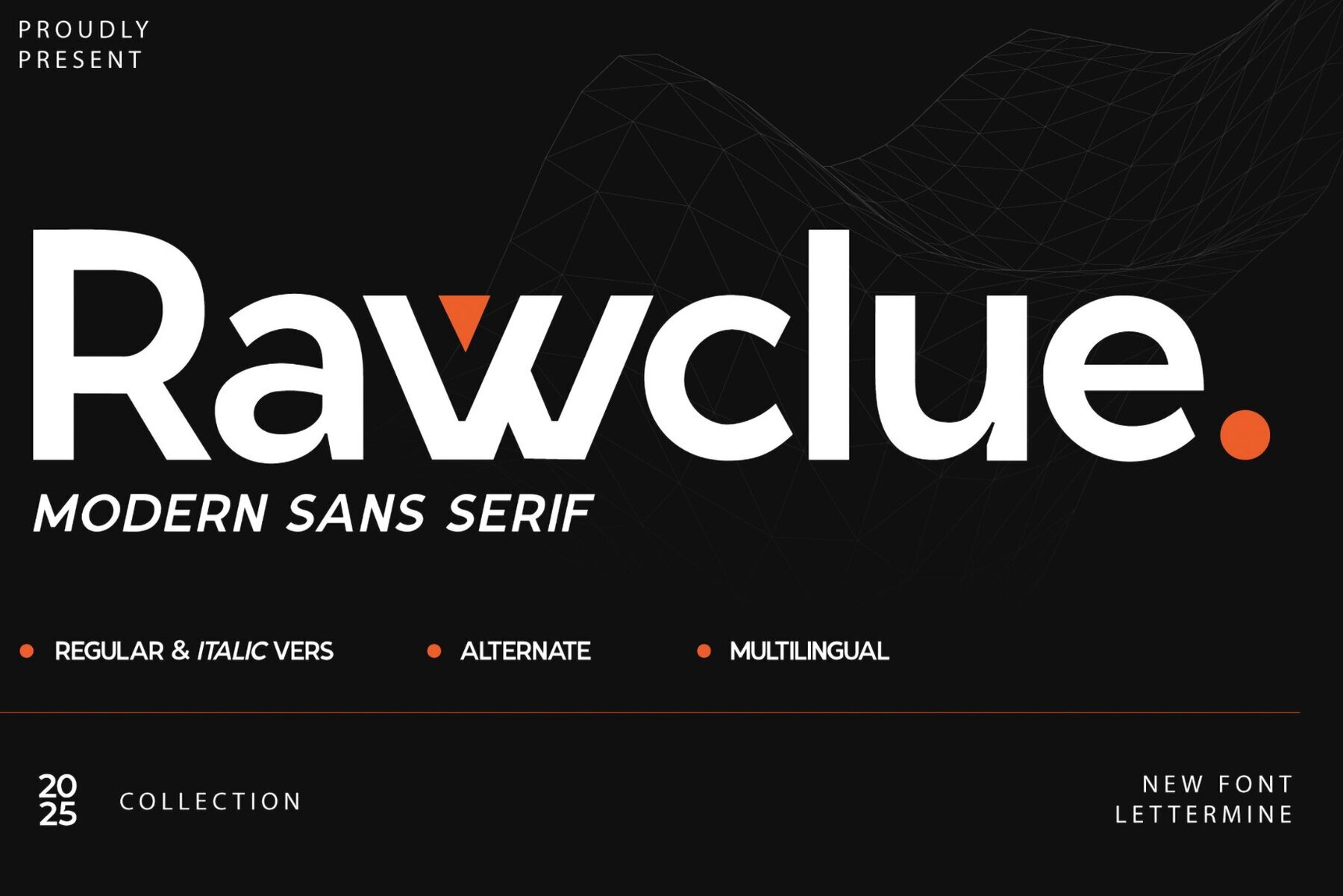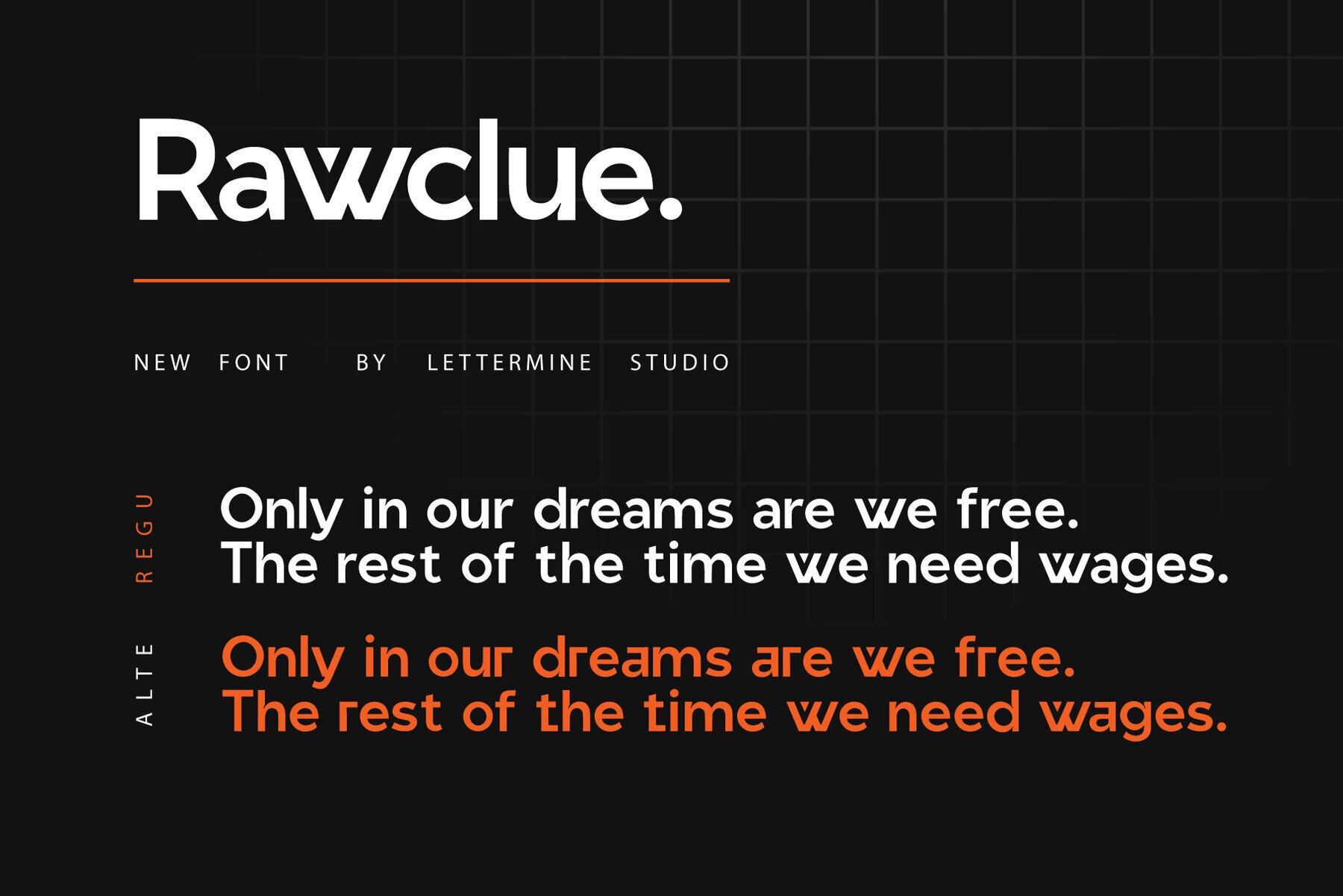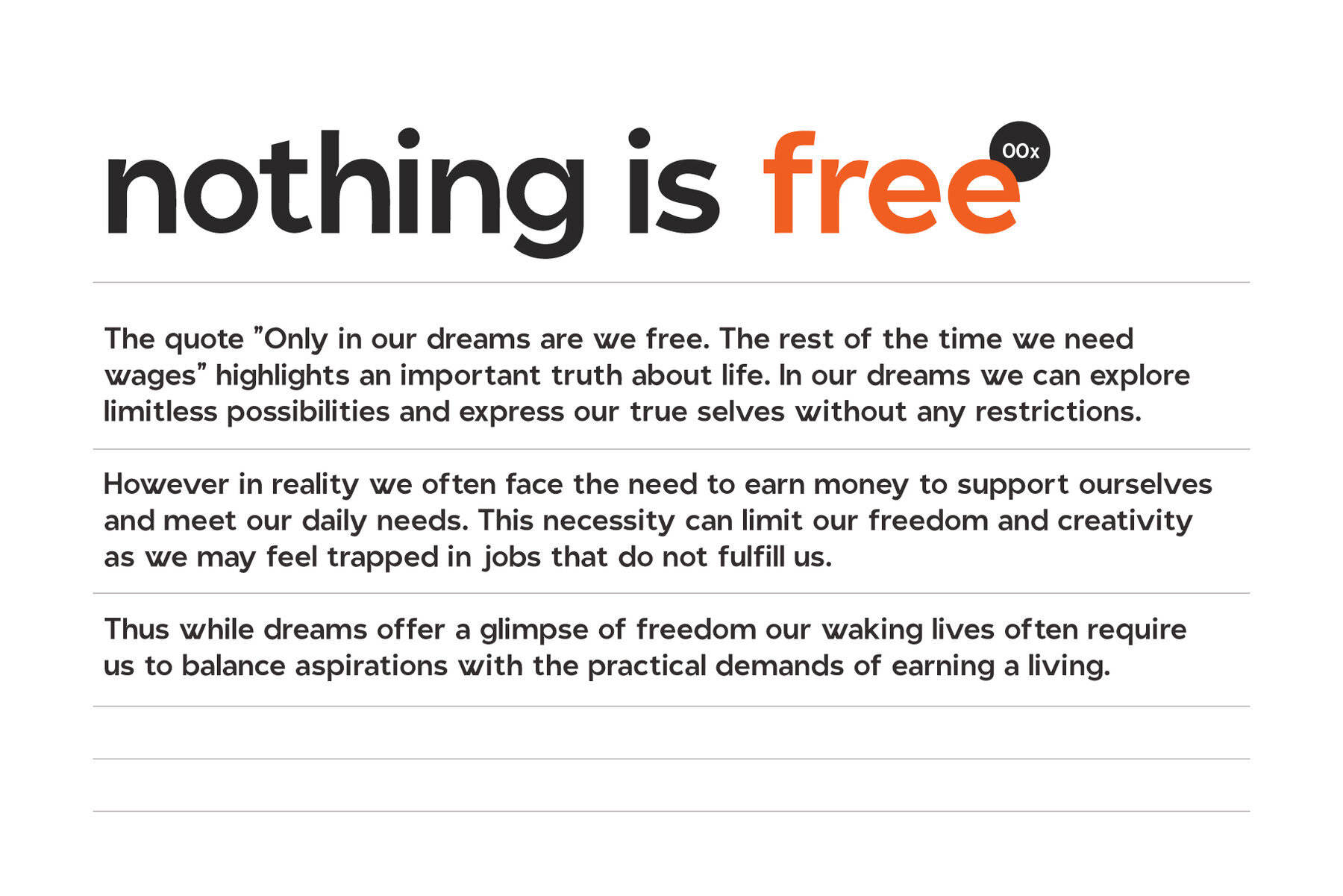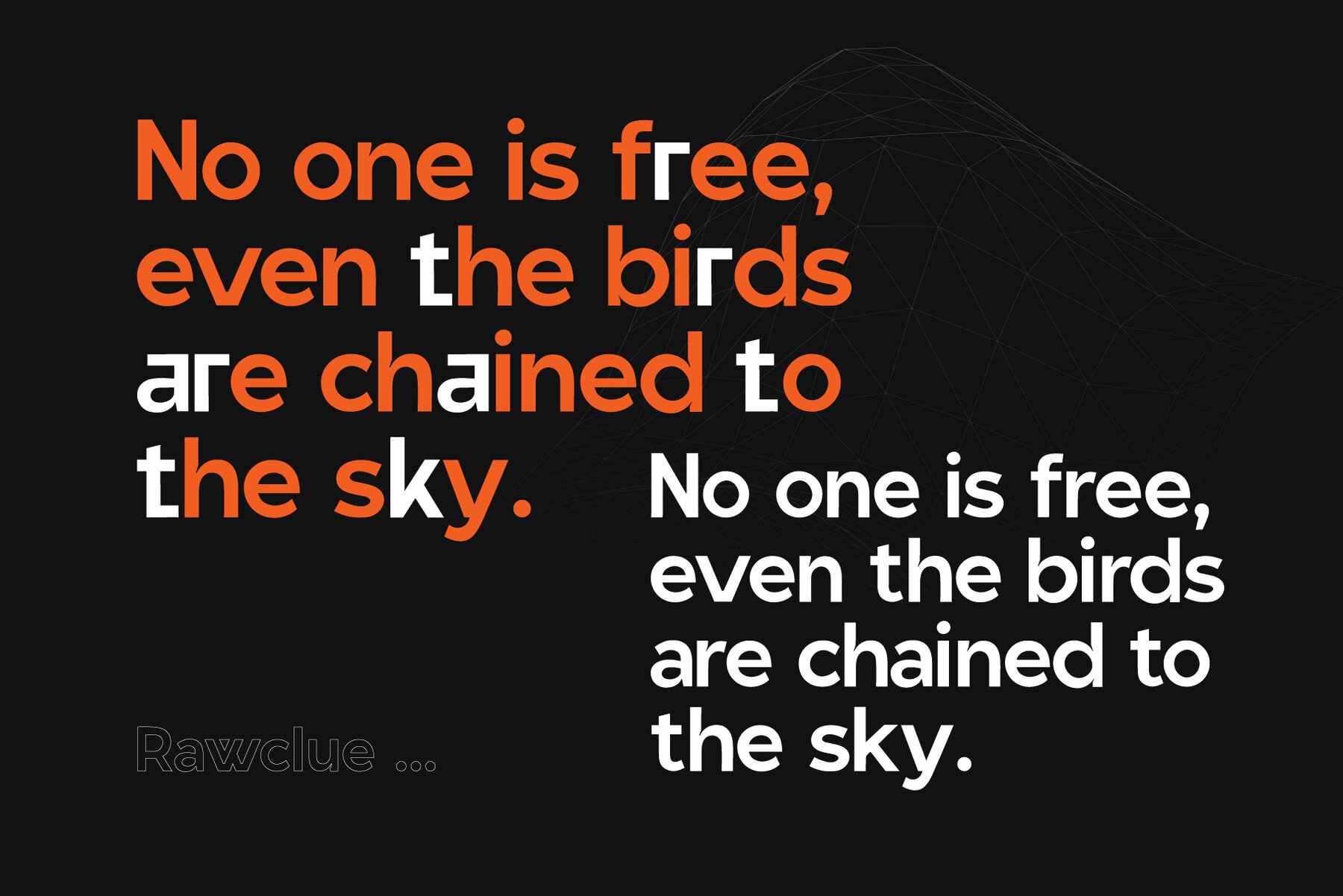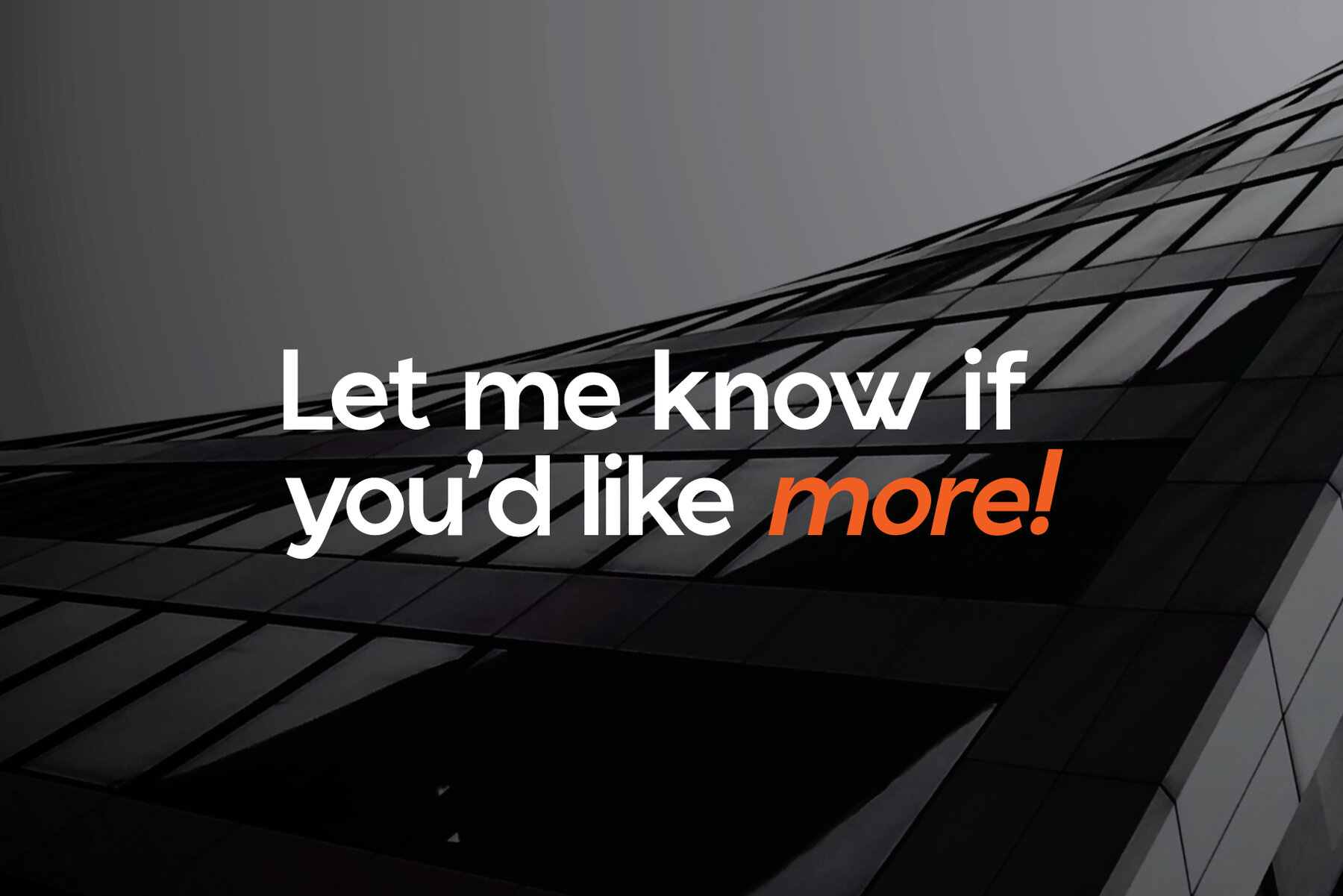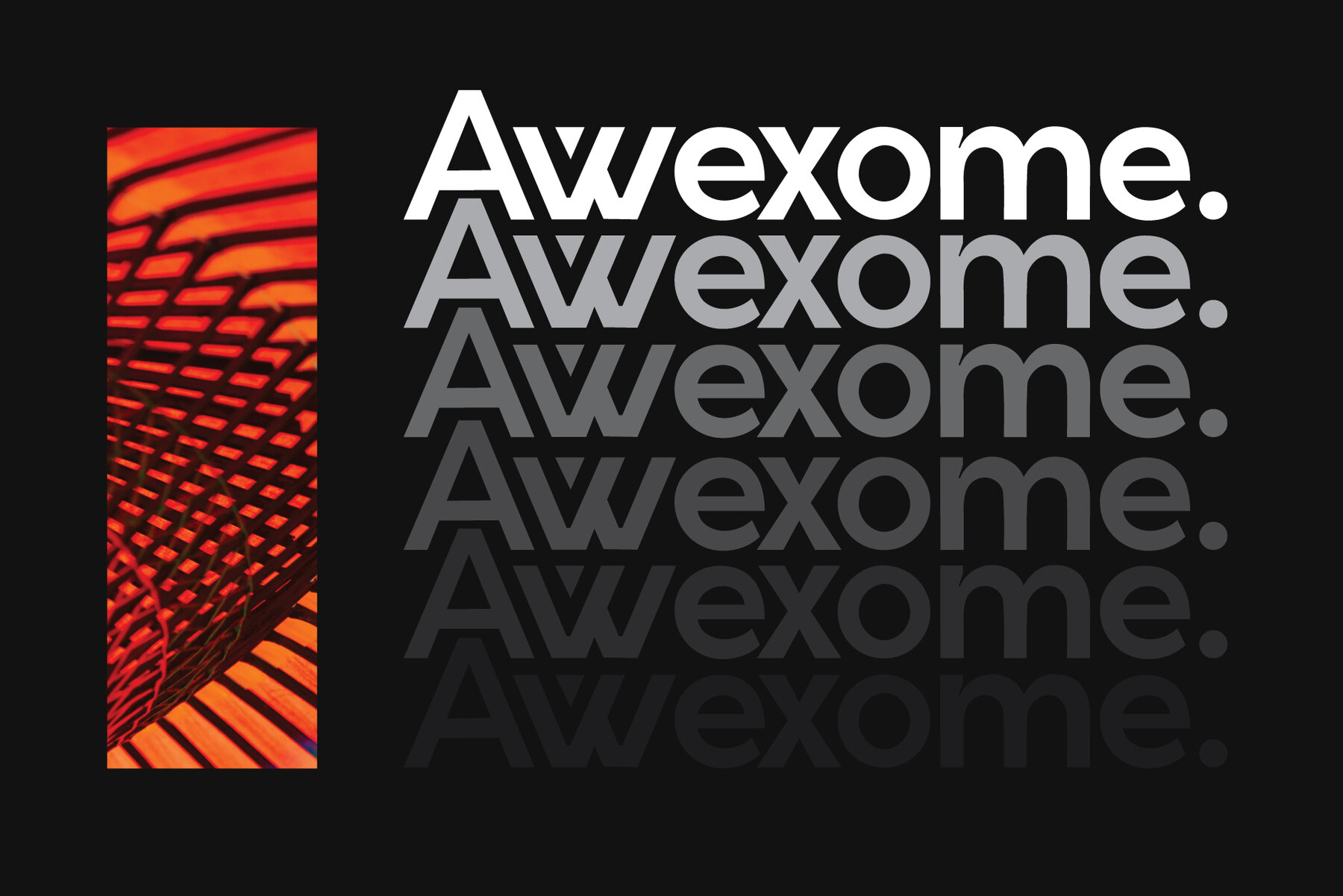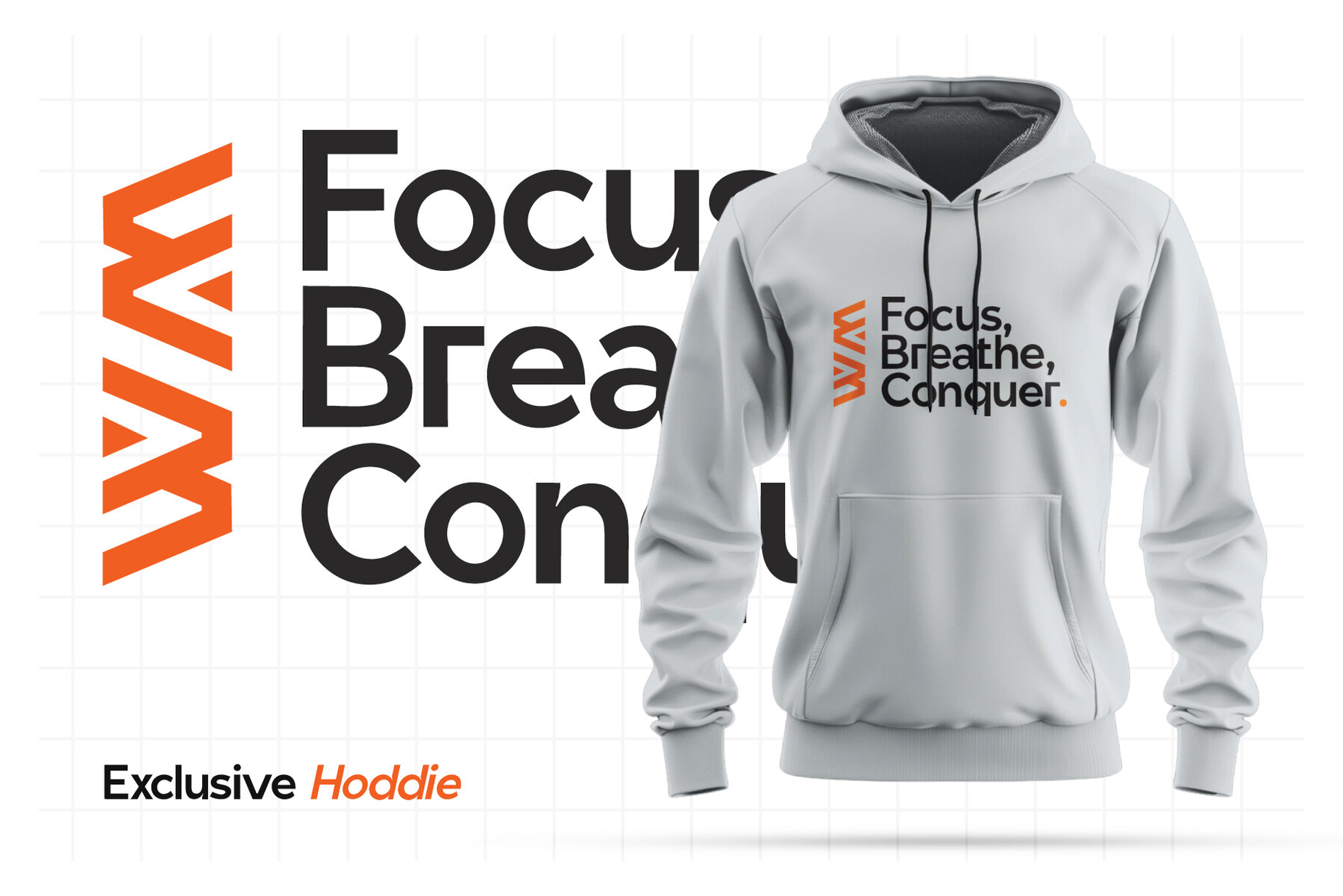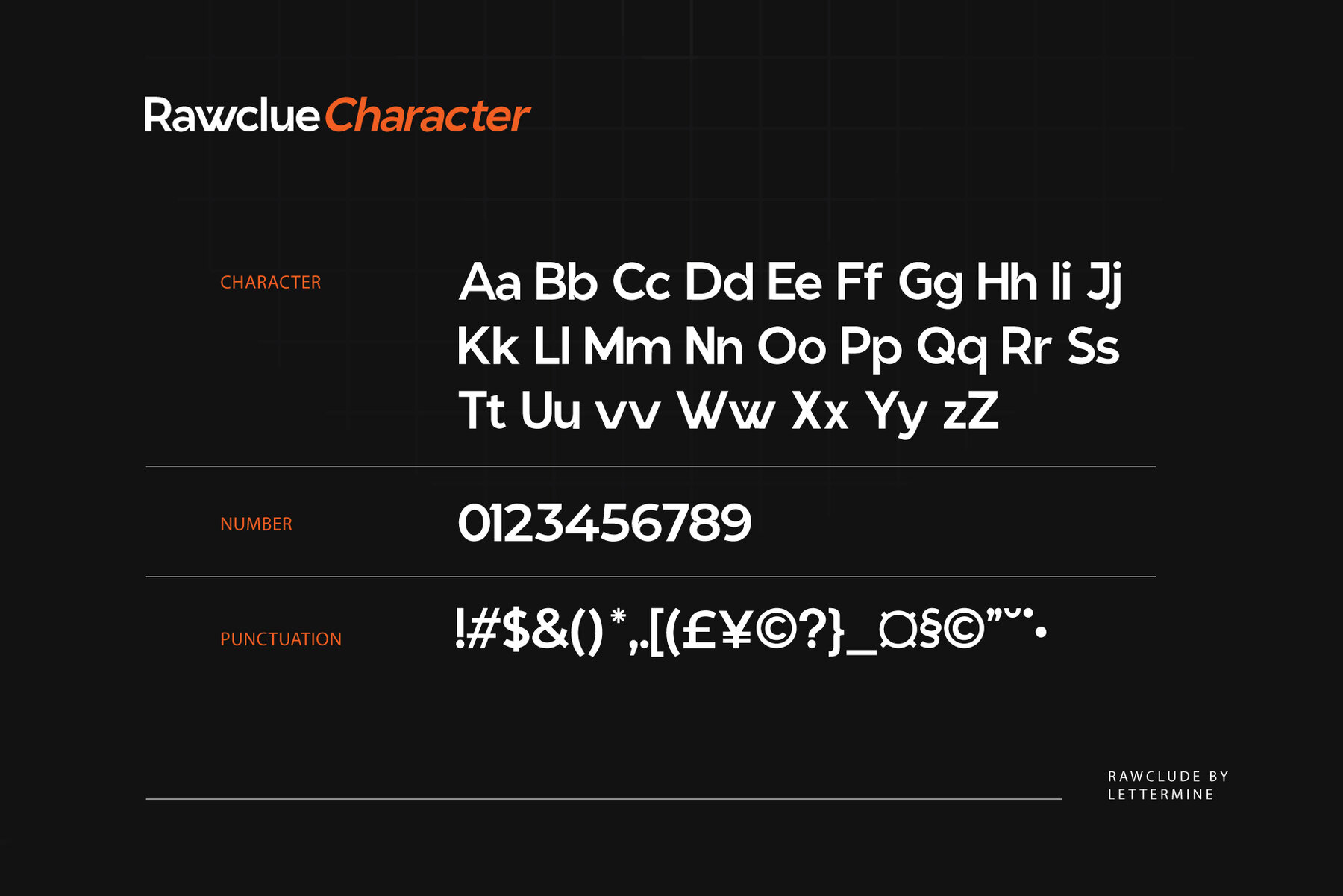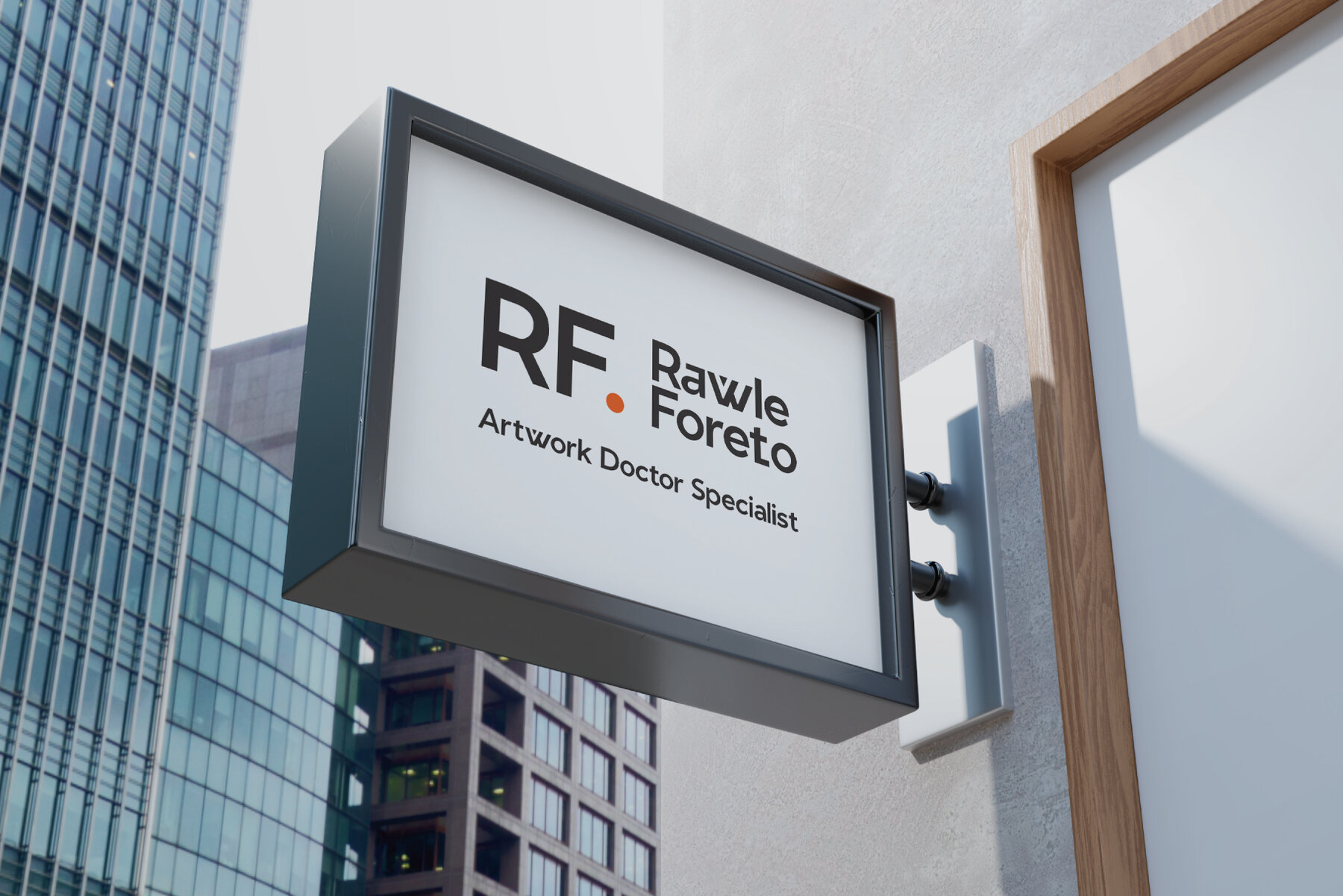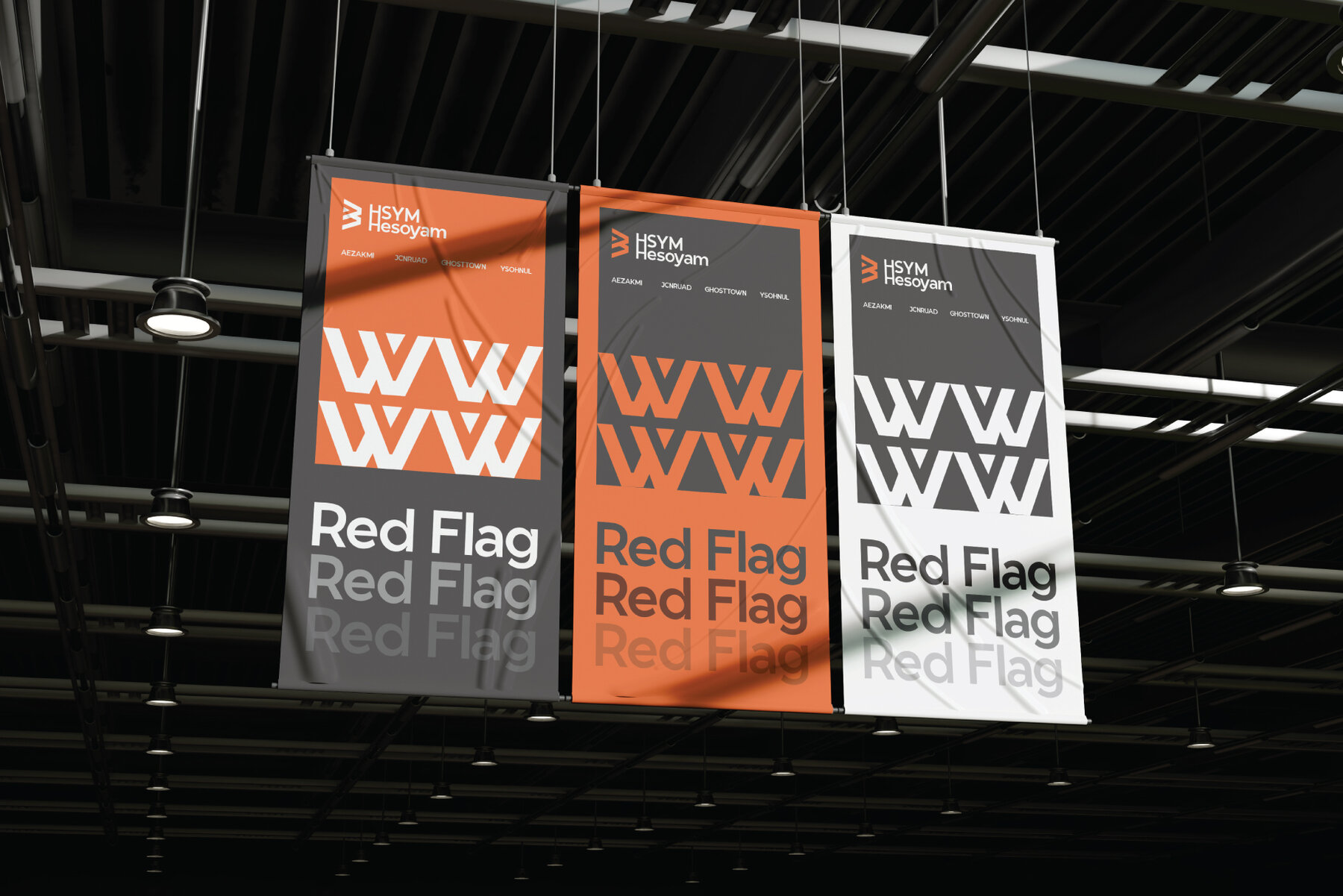
Rawclue Font
Rawclue is a sans serif font that artfully merges sleek, contemporary aesthetics with exceptional versatility. Crafted for both professional and creative endeavors, its well-balanced letterforms offer clarity and substantial impact. Available in regular and italic styles, Rawclue effortlessly suits a diverse range of design applications, from branding and editorial layouts to digital interfaces. Rawclue imbues your designs with a modern simplicity and a dignified character. Whether you're designing sleek logos, engaging social media graphics, or stylish editorial content, Rawclue offers an ideal foundation for a polished and contemporary look.Rawclue: Modern Sans Serif Versatility